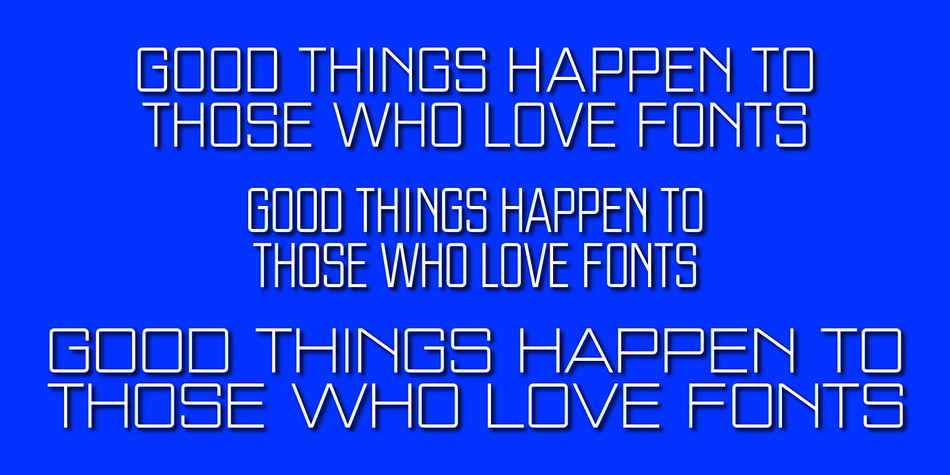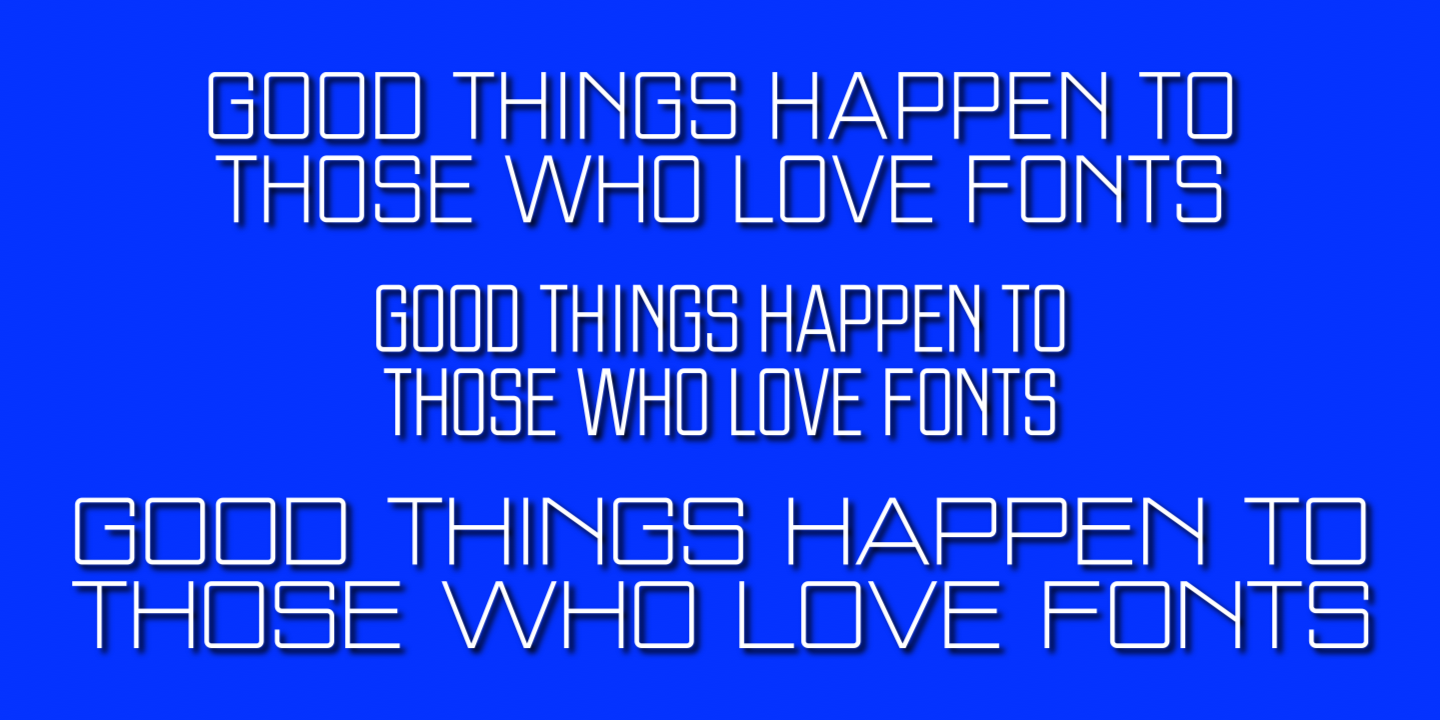
Pristine Light is a display sans font family. This typeface has three styles and was published by Gerald Gallo Fonts.
The Pristine Light fonts are clean and crisp, sans serif, uppercase only. It was designed specifically for those applications where uppercase text is appropriate, such as display, headline, logotype, branding, and similar applications. There are numbers, punctuation, accented characters, symbols, and miscellaneous characters. For convenience the uppercase alphabet is repeated under their respective lowercase keys.